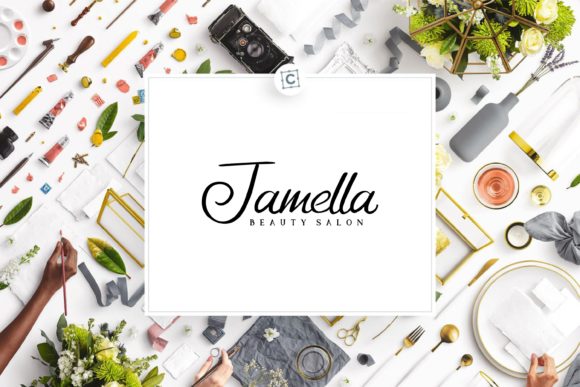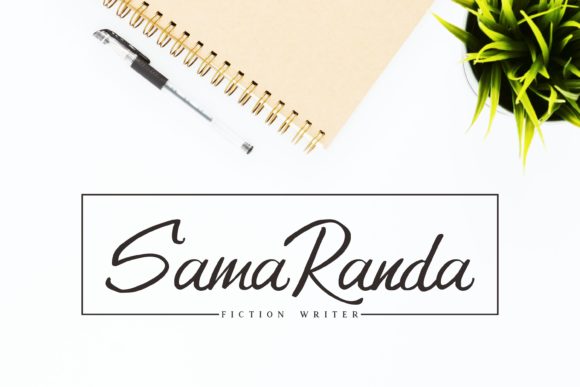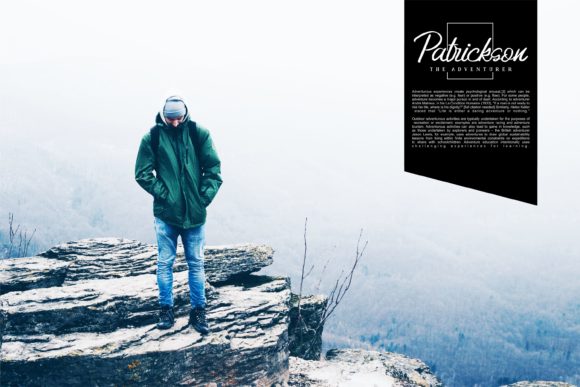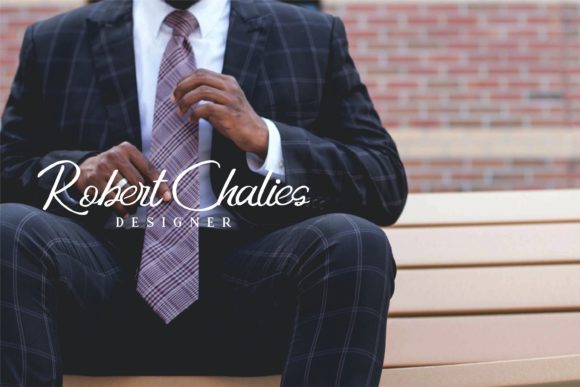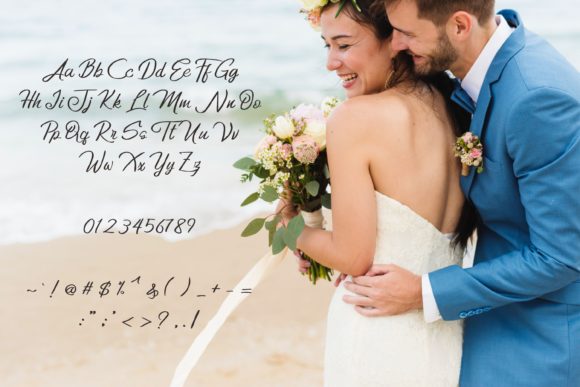
Introduction to Ramores Font
Ramores is a romantic, unique and original handwritten font that is easy to remember.
Fall in love with its adorable charm and use it for any creative project that needs beautiful nuances .
Key Features of Ramores Font